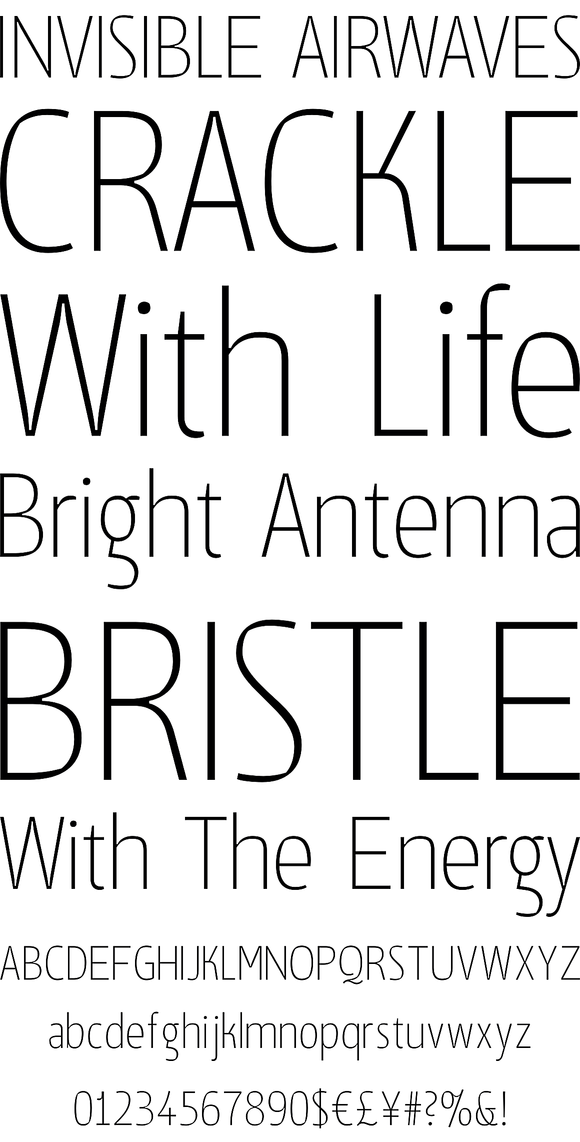
There are many sans serif typefaces with calligraphic tendencies, but Suomi Sans is different: the outside forms are fairly basic, fairly narrow sans serif style, but the counter forms have a strong calligraphic flair with accented upper left and lower right hand corners. With six weights in Roman and italic, Suomi Sans works well for both headline and text use.